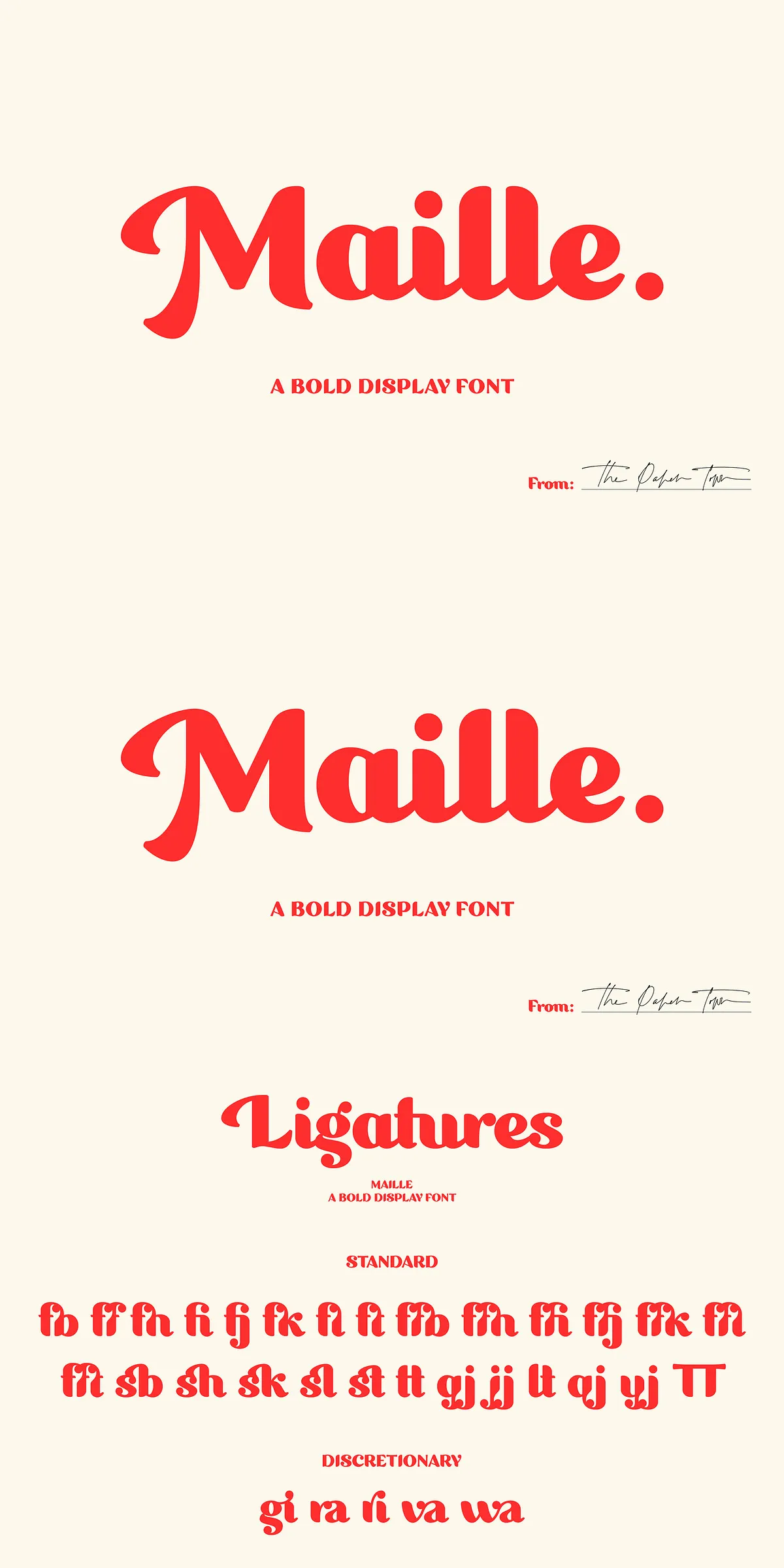
Maille stands out as a bold and eye-catching display font designed to elevate your creative projects with a touch of vintage sophistication. Crafted with precision, this font harnesses the power of OpenType technology, featuring contextual alternates, gorgeous ligatures, and extensive stylistic sets that enhance your typography with a subtle retro feel. Whether you are designing striking headlines, editorial layouts, compelling advertisements, or distinct branding materials, Maille offers the versatility and aesthetic impact you need to command attention and convey your message effectively.
Advanced OpenType Features Empower Creative Expression
One of Maille’s core strengths lies in its rich OpenType functionality. It includes a comprehensive set of contextual alternates that adapt letterforms depending on their context within words, ensuring smooth and natural typographic flow. The font also boasts an impressive collection of over 139 standard and discretionary ligatures, which seamlessly connect letter pairs to create elegant and sophisticated text compositions. Additionally, stylistic sets introduce swashes, initial and terminal forms that bring distinctive character and artistic flair to your designs.
Extensive Glyph Set for Comprehensive Usage
Maille encompasses a vast set of over 720 glyphs, covering uppercase and lowercase characters, numerals, punctuation, and special symbols. This large glyph inventory provides designers with the flexibility to craft diverse textual arrangements without compromise. It ensures stylistic consistency and enables customization according to the specific needs of editorial pieces, advertising campaigns, packaging designs, and beyond.
Robust Multilingual Support for Global Reach
This font extends support to a broad range of Western, Central, and Southeast European languages, equipping your projects to communicate effectively across different linguistic markets. The carefully designed multilingual characters maintain typographic harmony and stylistic coherence, making Maille an ideal choice for international branding and publishing.
Ideal Applications of Maille Font
Maille’s bold aesthetic and extensive feature set make it particularly suitable for large headers that demand attention and impactful visual presence. It excels in editorial design where stylistic detail and readability are critical, as well as in advertising where distinctiveness can drive brand recognition. The font’s strength also translates well to branding efforts, packaging designs, and any project where a vintage-inspired yet contemporary feel is desired.
Summary of Maille’s Features and Benefits
- Bold display font with a subtle retro tone that commands attention.
- Advanced OpenType capabilities, including stylistic sets, contextual alternates, and 139+ ligatures.
- Comprehensive glyph set featuring uppercase, lowercase, numerals, punctuation, and special characters.
- Multilingual compatibility covering Western, Central, and Southeast European languages.
- Perfect for headlines, editorial, branding, advertising, and packaging.
By choosing Maille, designers gain a font that marries boldness with refinement and technological sophistication, empowering them to create expressive, professional, and visually captivating typography suited for today’s diverse design challenges.